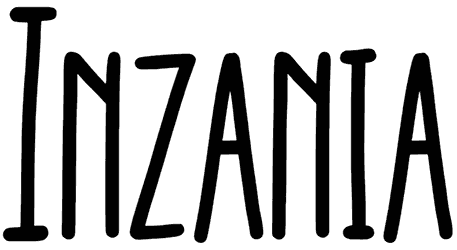
Inzania Font
Do you desire to have more doses of fun in your design? Let’s test Inzania and degust its cute and minimal vibe. This handwritten font has two sets of uppercase which have various details in their designs, but it doesn’t support lowercase. Put Inzania on your texts, for example, banners, backgrounds, logos, and others, and be distinct.